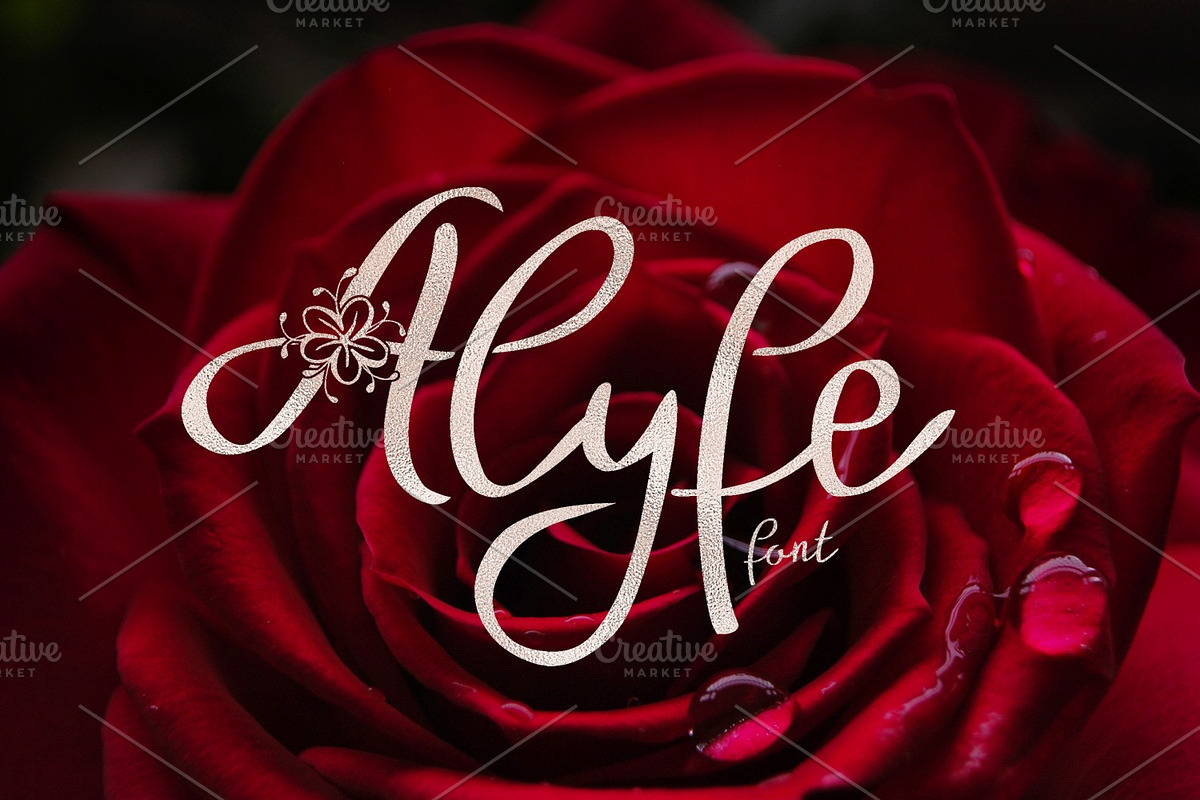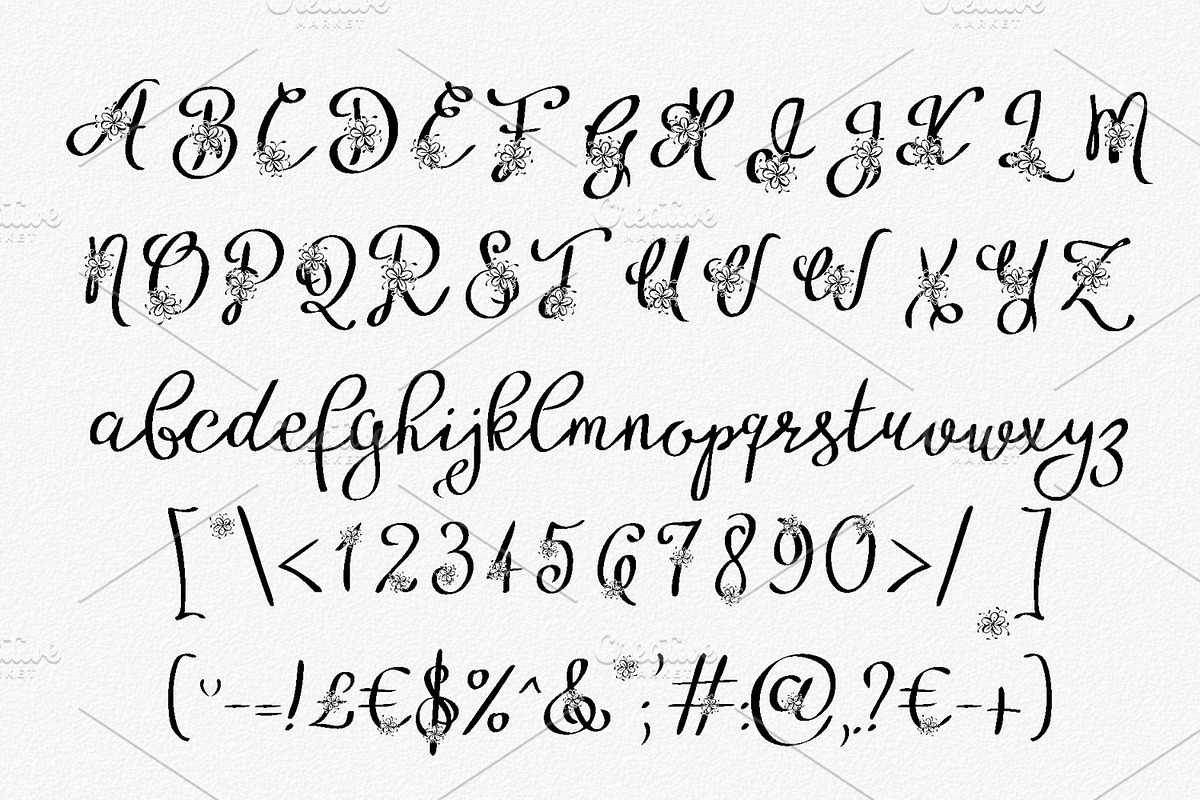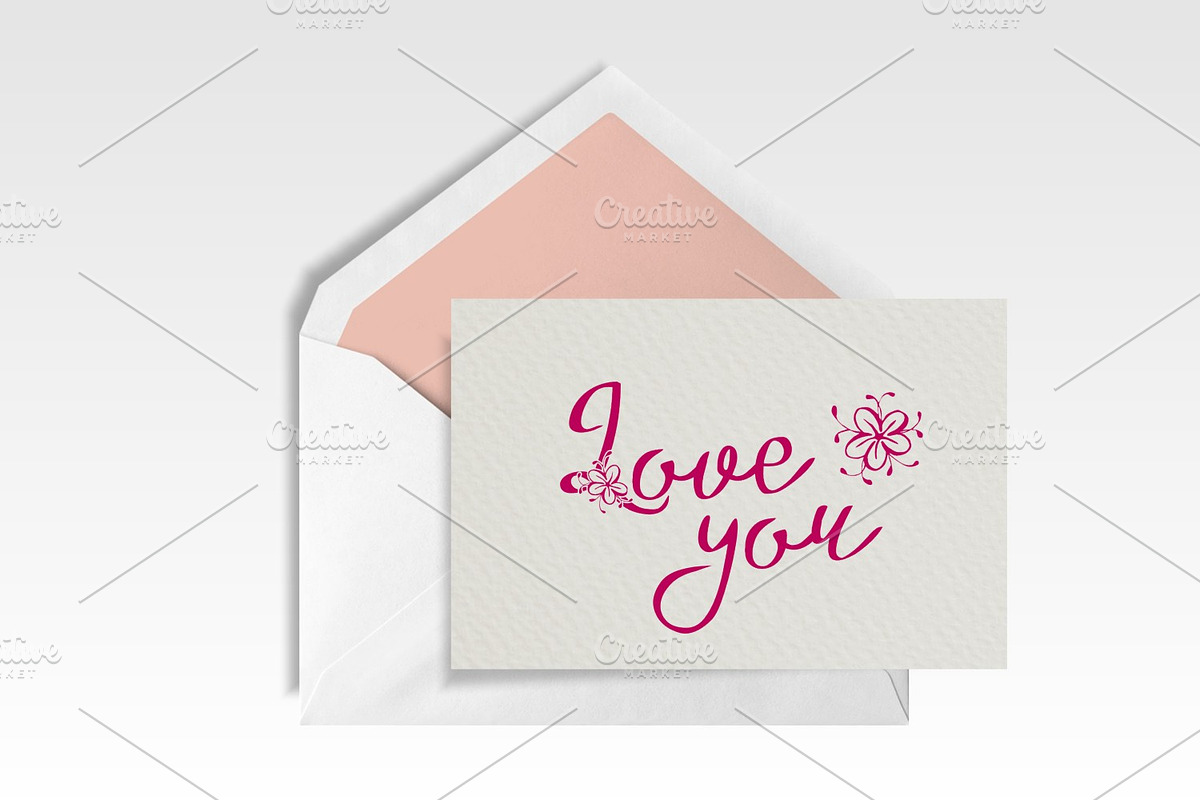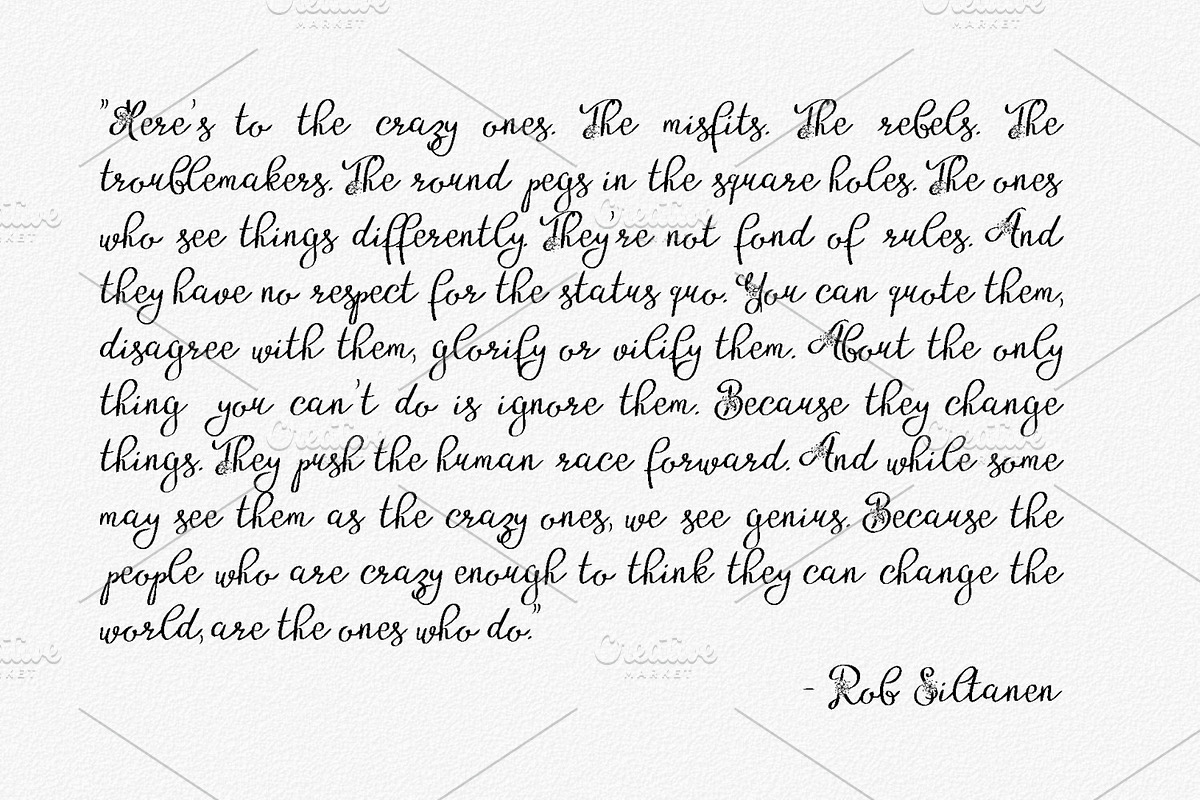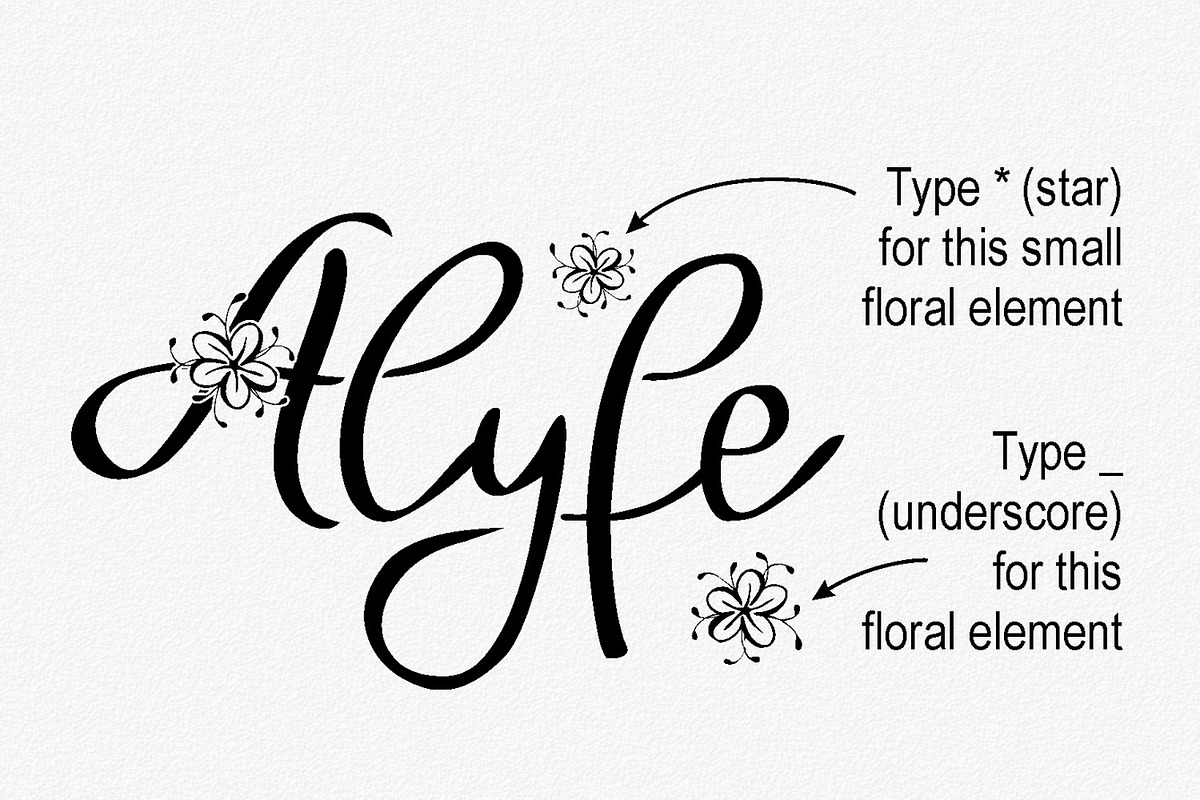
Alyfe
Introducing Alyfe hand lettered typeface. Great for wedding invitations or other stationeries.
Alyfe by Digital Typeface Studio fits naturally into Branding, posters, packaging, typography.